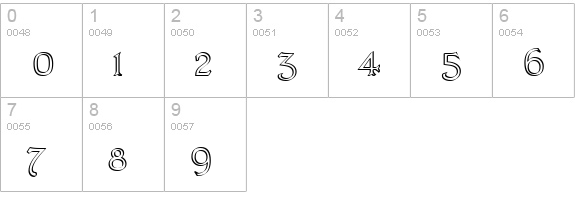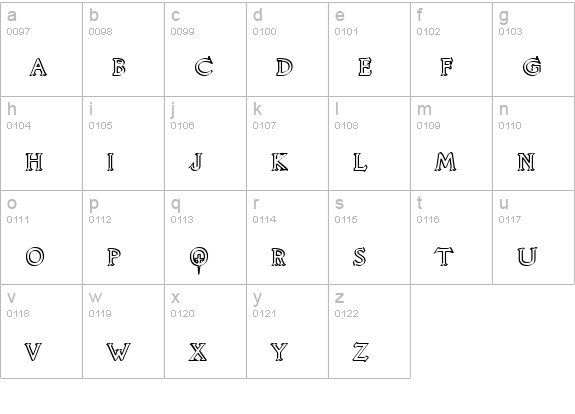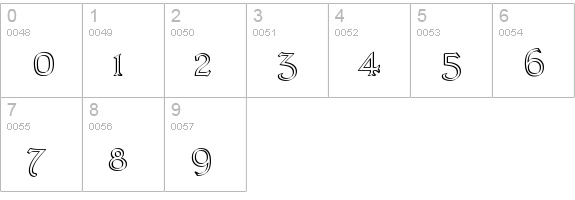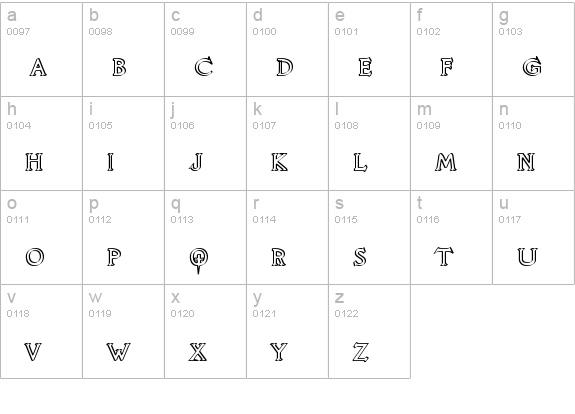
Knights Quest Callig font is a striking and elegant typeface that exudes a sense of medieval grandeur and sophistication. With its intricate details and graceful curves, this font is perfect for adding a touch of classic charm to your designs. Whether you're working on invitations, posters, or branding materials, Knights Quest Callig font will surely make your text stand out. Best of all, Knights Quest Callig font is available for free download at FontsMarket.com. This means you can easily access this stunning font and use it in your projects without any cost. Don't miss out on the opportunity to elevate your designs with the timeless beauty of Knights Quest Callig font. Download it today and start creating captivating visuals that will leave a lasting impression.